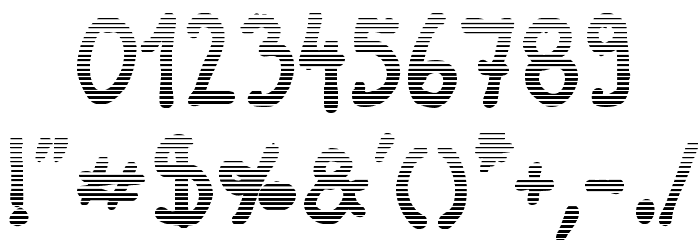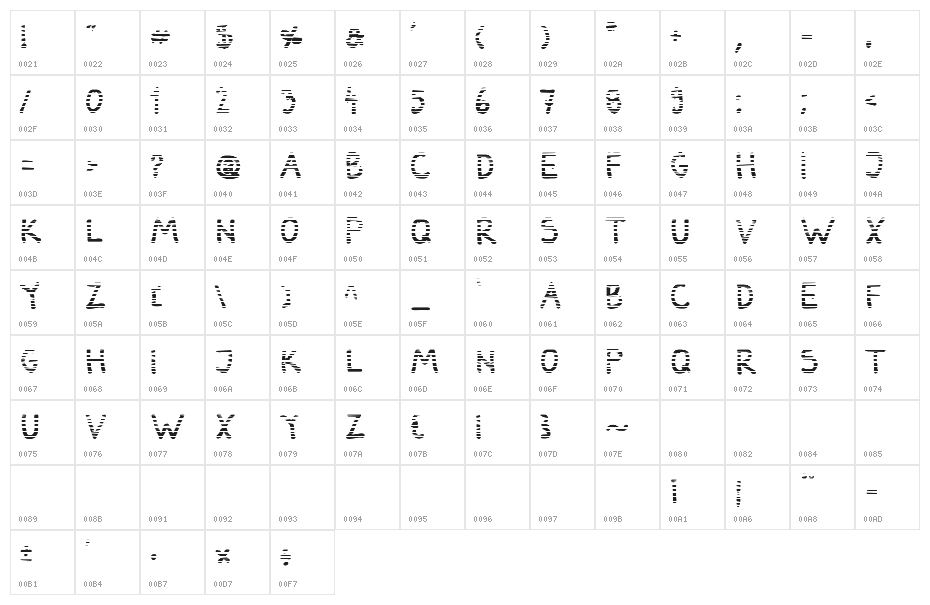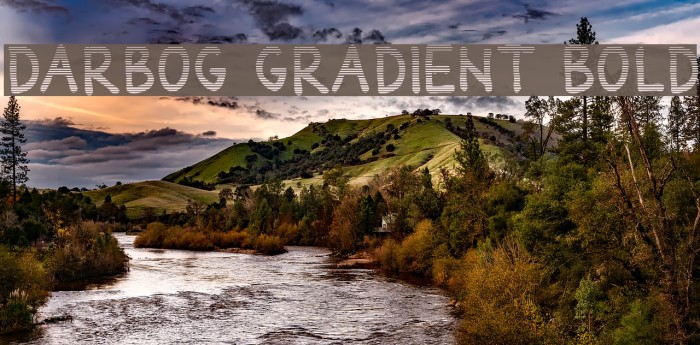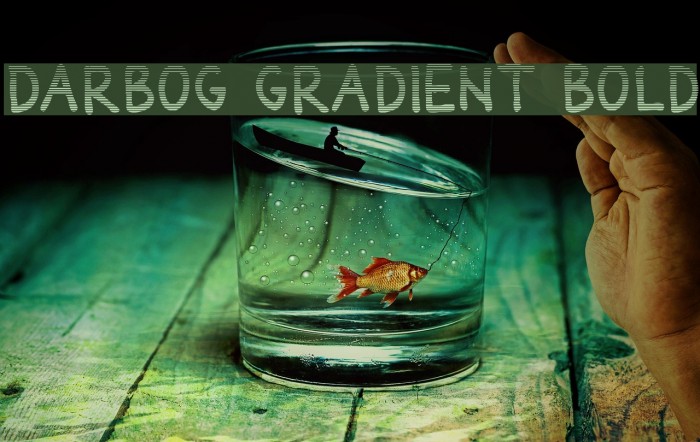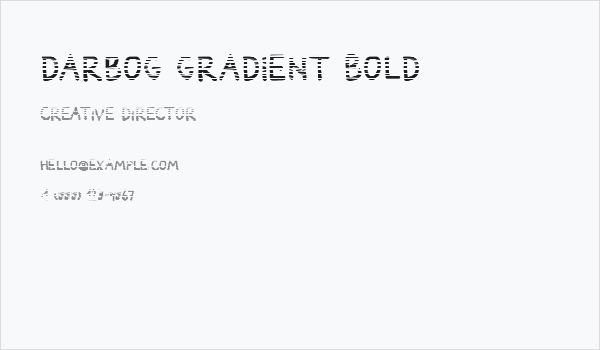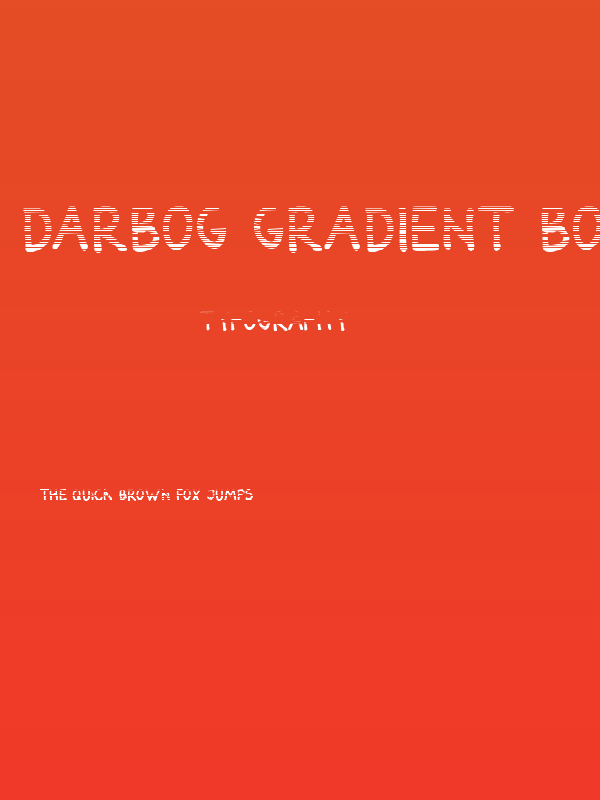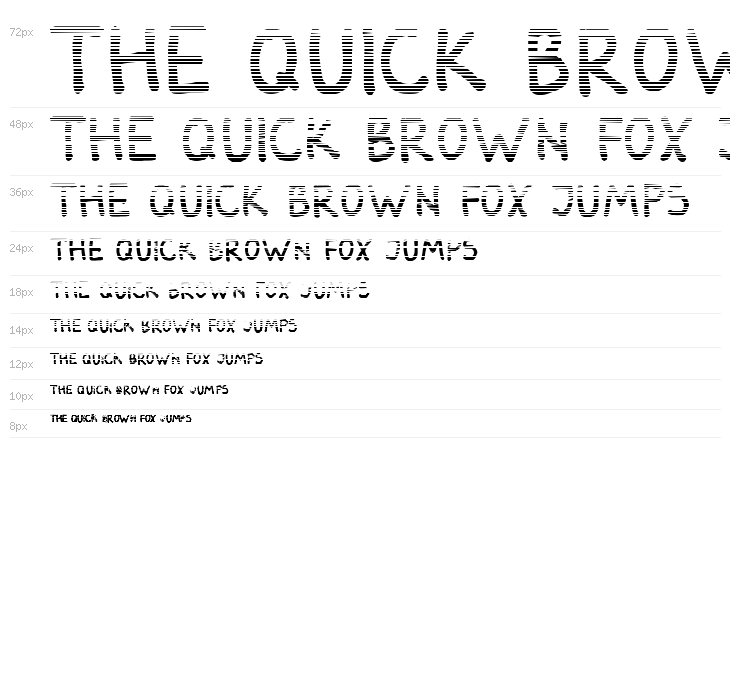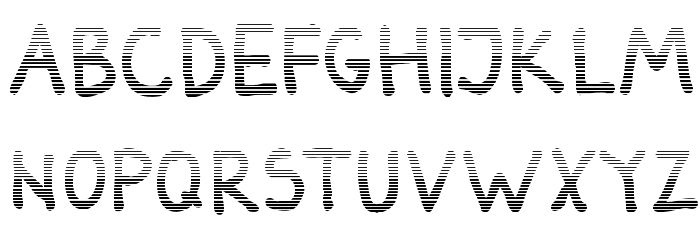
Darbog gradient Bold Font
Darbog gradient Bold Description
This font features a unique gradient effect created by horizontal lines that vary in thickness, giving it a dynamic and modern appearance. The characters are bold and slightly condensed, with a consistent width that maintains readability. The uppercase and lowercase letters are well-proportioned, and the numbers are clear and distinct. Special characters are included, maintaining the same stylistic approach. The overall design is eye-catching, making it suitable for creative and contemporary projects.
| Proposed Projects | Ideal for branding, posters, headlines, and digital artwork where a modern and dynamic look is desired. |